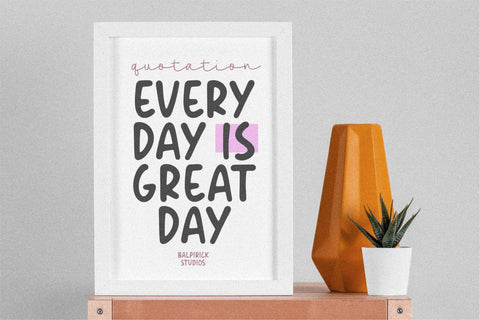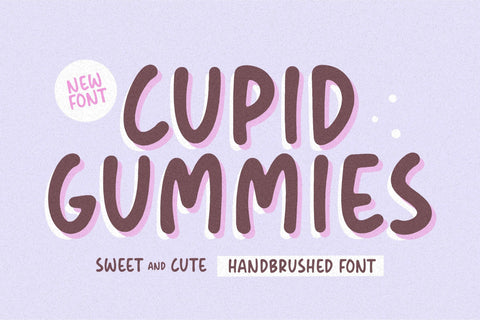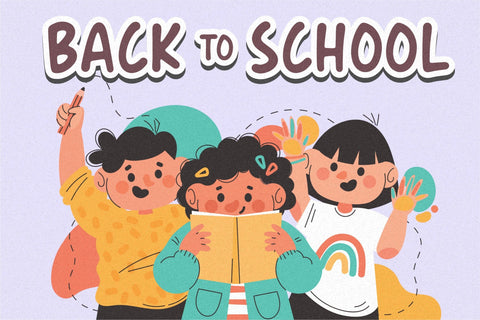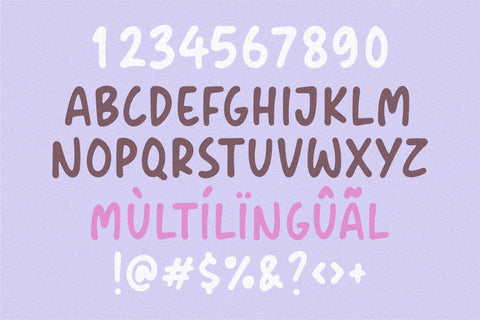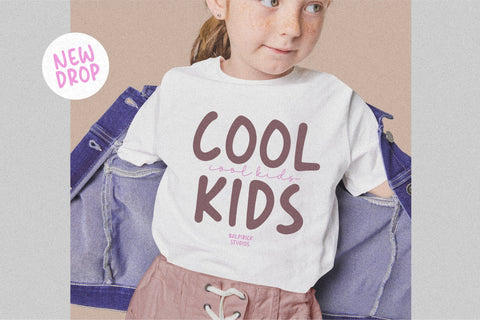
Cupid Gummies a Sweet and Cute Handbrushed Font
Cupid Gummies is a Sweet and Cute Handbrushed Font.
Whether you’re using it for crafts, digital design, presentations, or making greeting cards, this font has the potential to become your favorite go-to font, no matter the occasion!
This font only has allcaps letters.